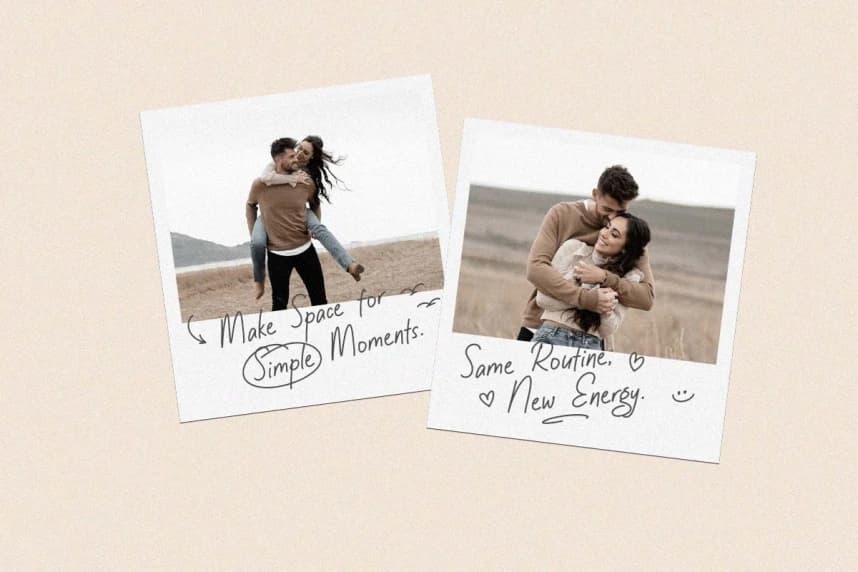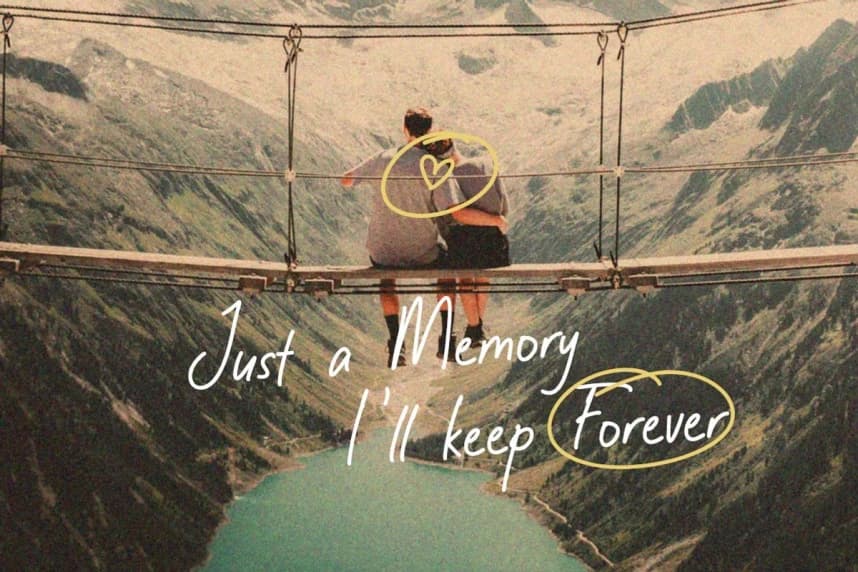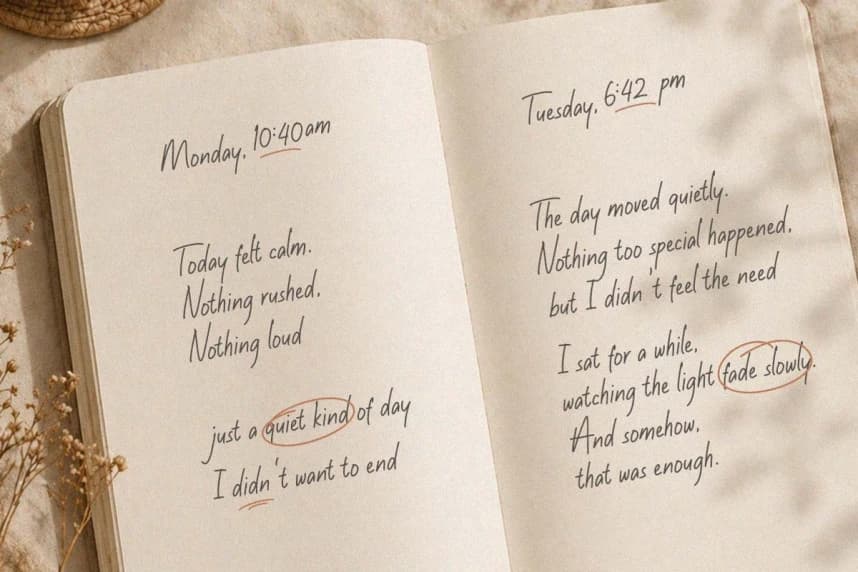
Softly Written Font
Softly Written Font feels like little notes scribbled in a cozy journal, with smooth handwritten strokes and playful doodles that make every word look warm and friendly. The letters flow naturally with a simple everyday charm